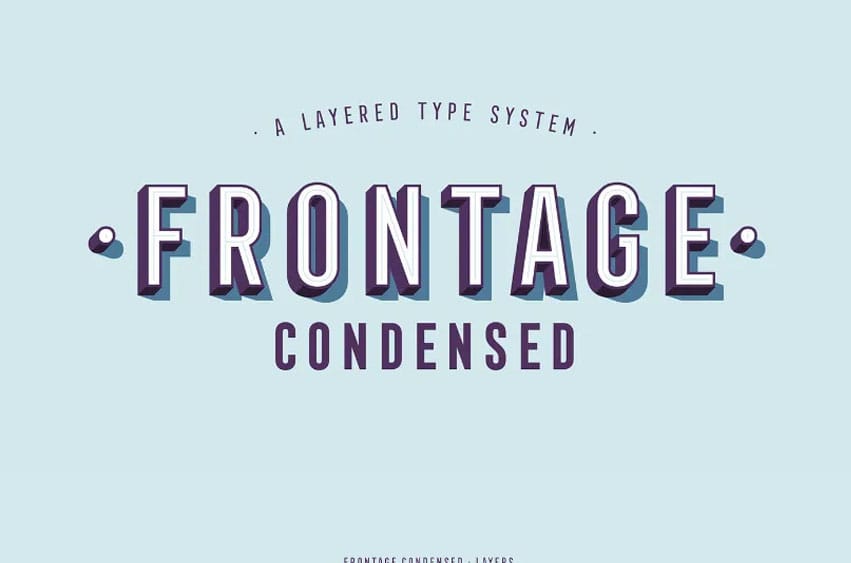
Frontage Condensed Font is a symbiotic type face for text and iconography that is based on the iconic facade signs. The program is 100% free and can be downloaded Here today for immediate use. The most obvious similarity is based on the three-dimensionality as is witnessed on stores’ sidings; moreover, the font is small but large enough to provide this font with the authoritative voice.
Bulb and Neon layers give an old school look to every collection from the Influence family and increases the impact with the application of Shadow layer. It is more preferable at the frontage condensation though, especially when the advertising is done in color; however, it might work for those who want to have that powerful advertisement that combines the white and black color (see the PDF sample).